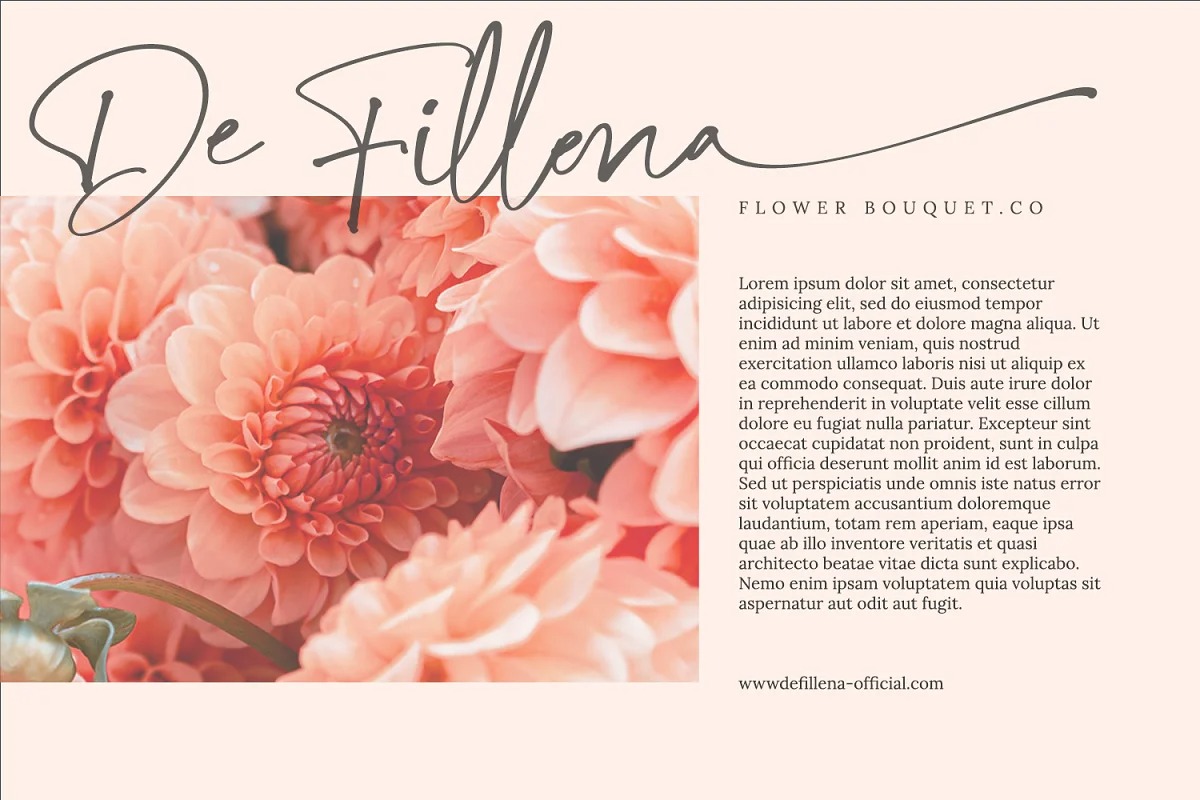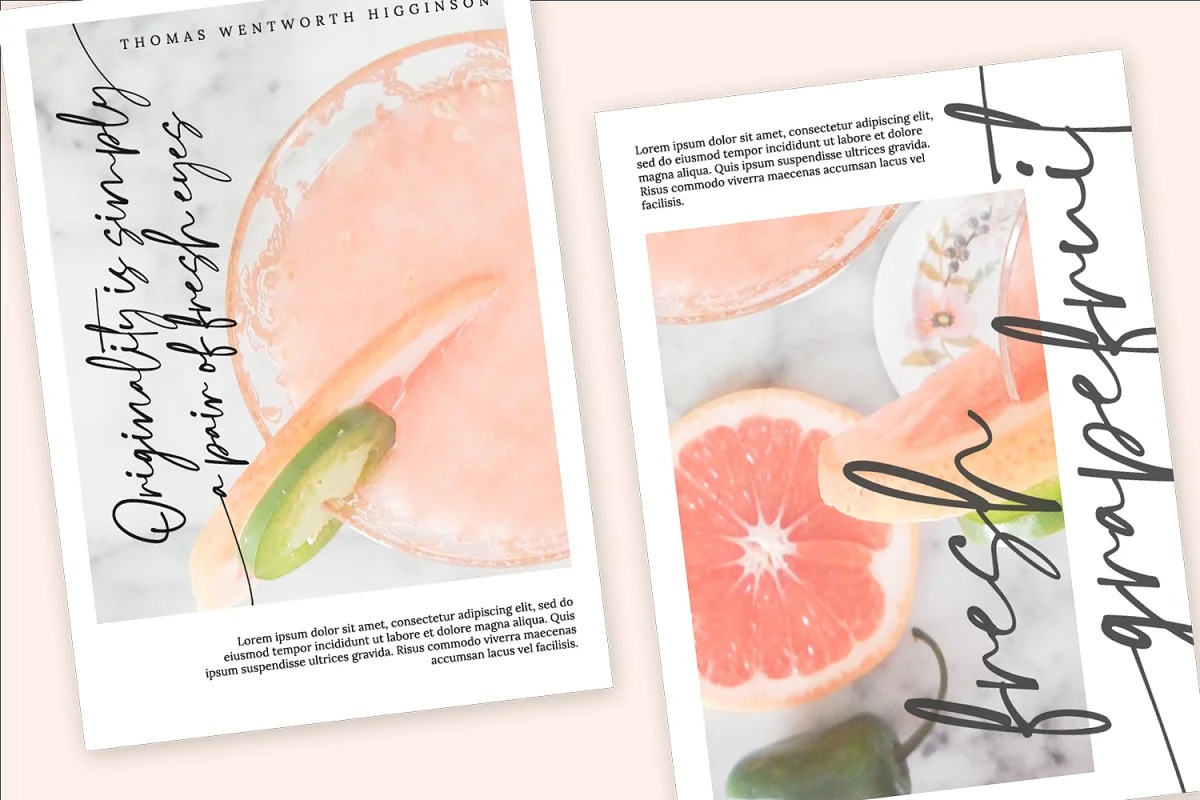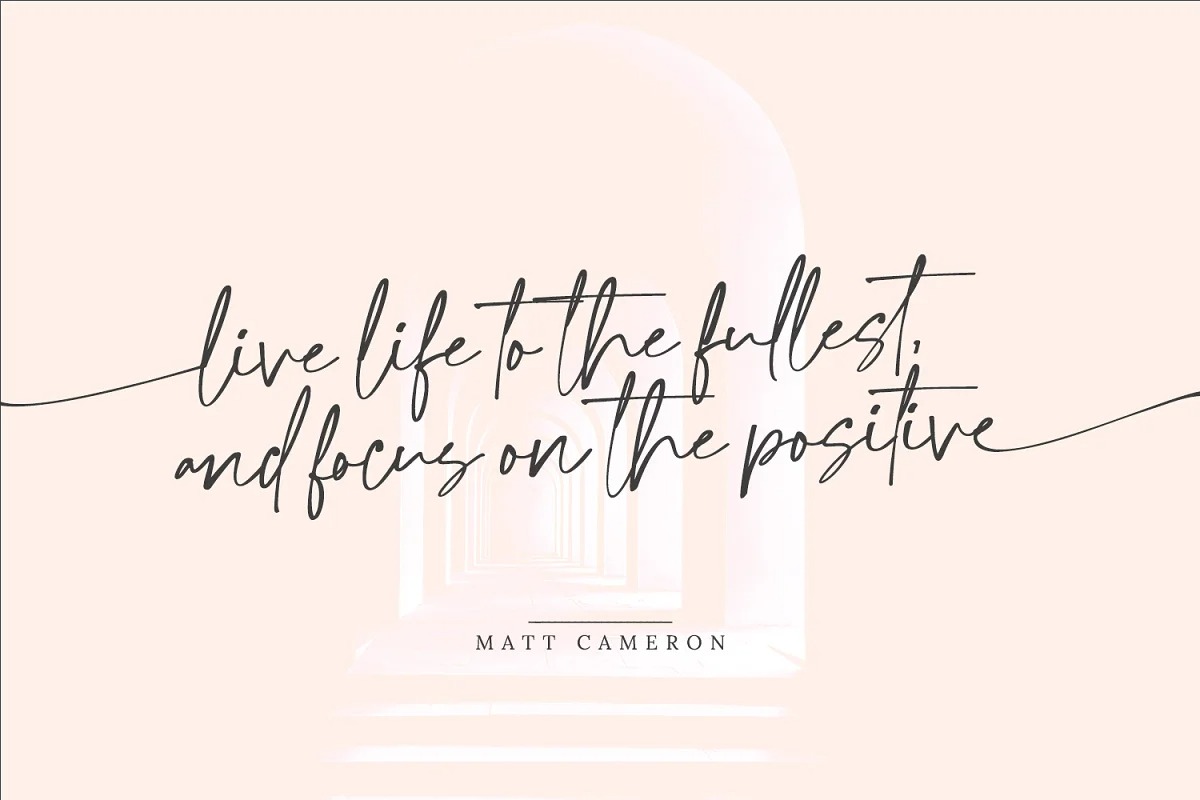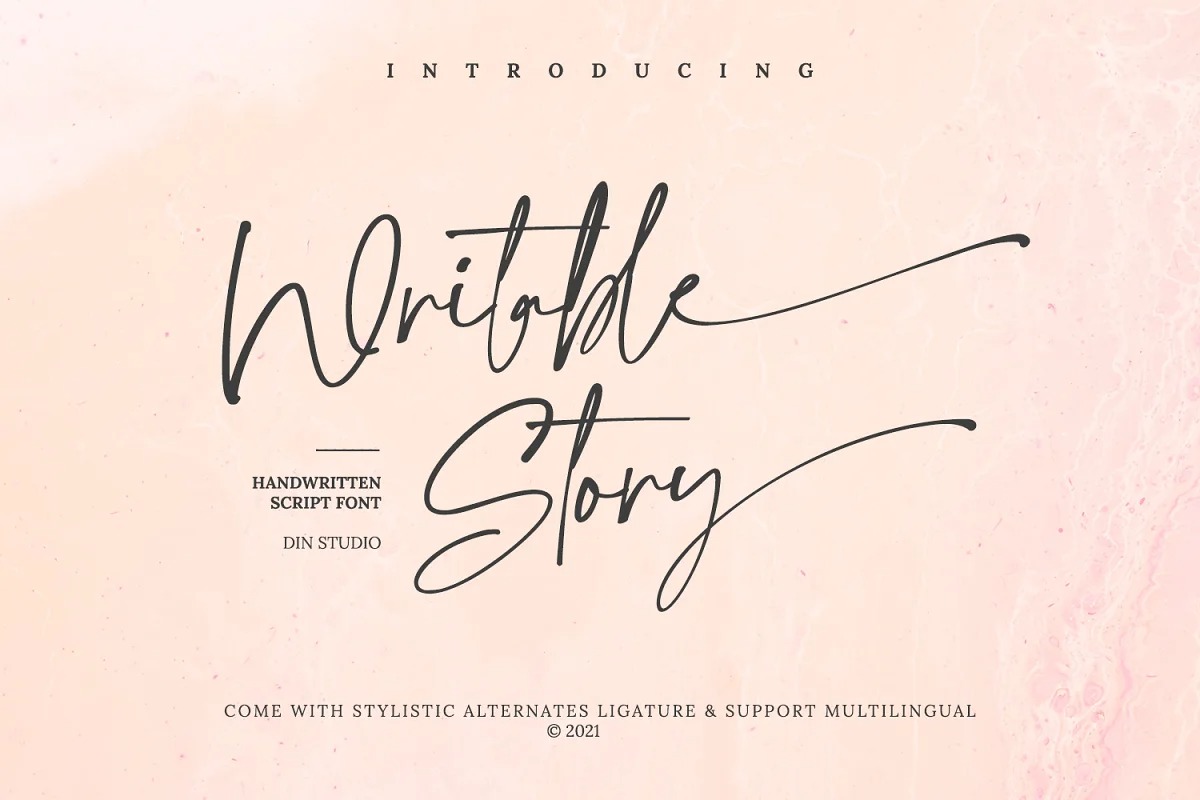
Writable Story Script Font
It’s a new script signature font created by Din Studio with multilingual support, inspired from vintage handwritten script on love latter. This font is more than just another handwritten font. Every stroke and curve encapsulates the essence of luxury. and elegance. Ideal to create standout headings, promote your online sales, Instagram quotes, and even printed materials like business cards, t-shirts, or invitations.